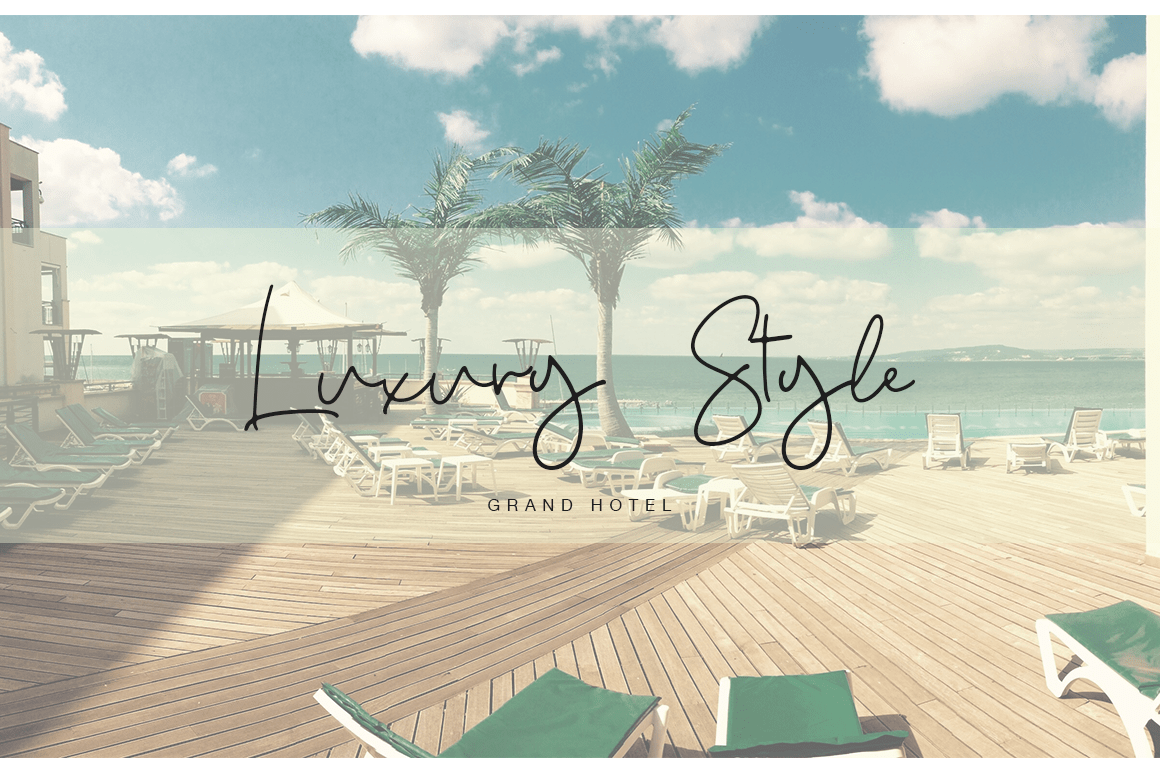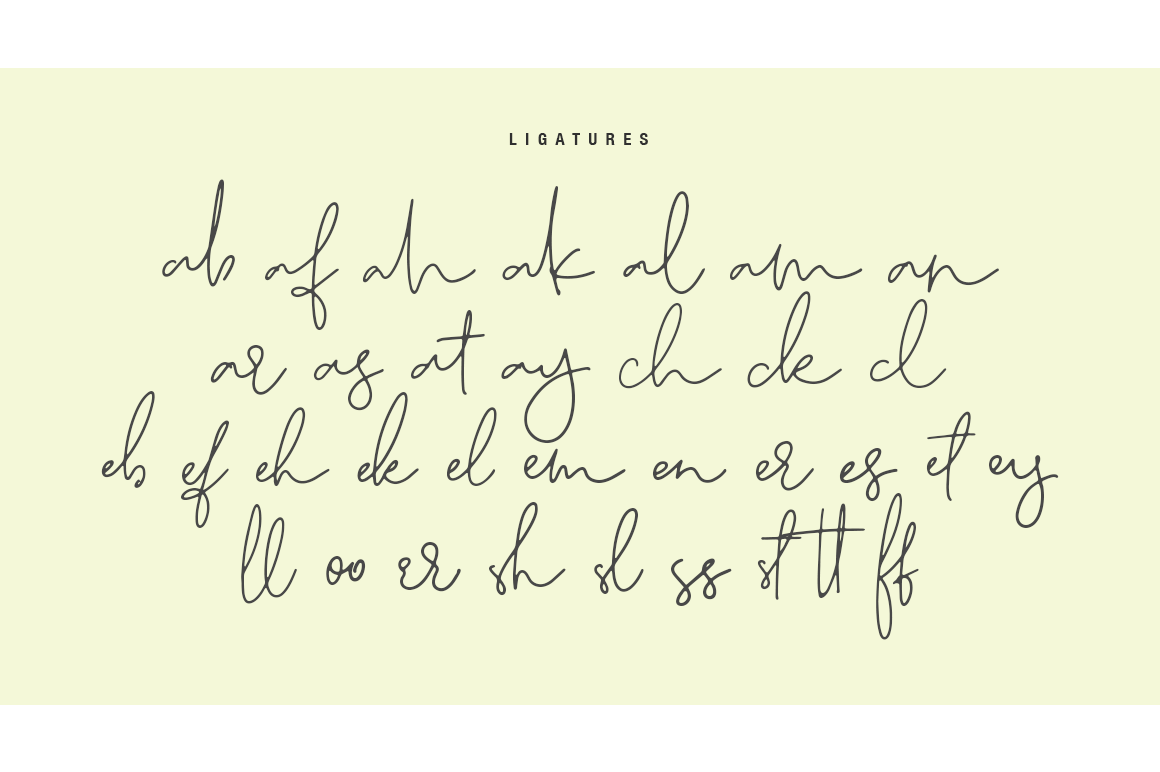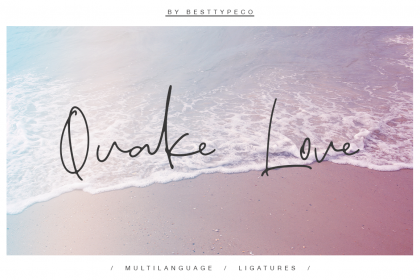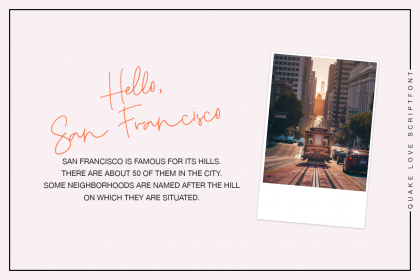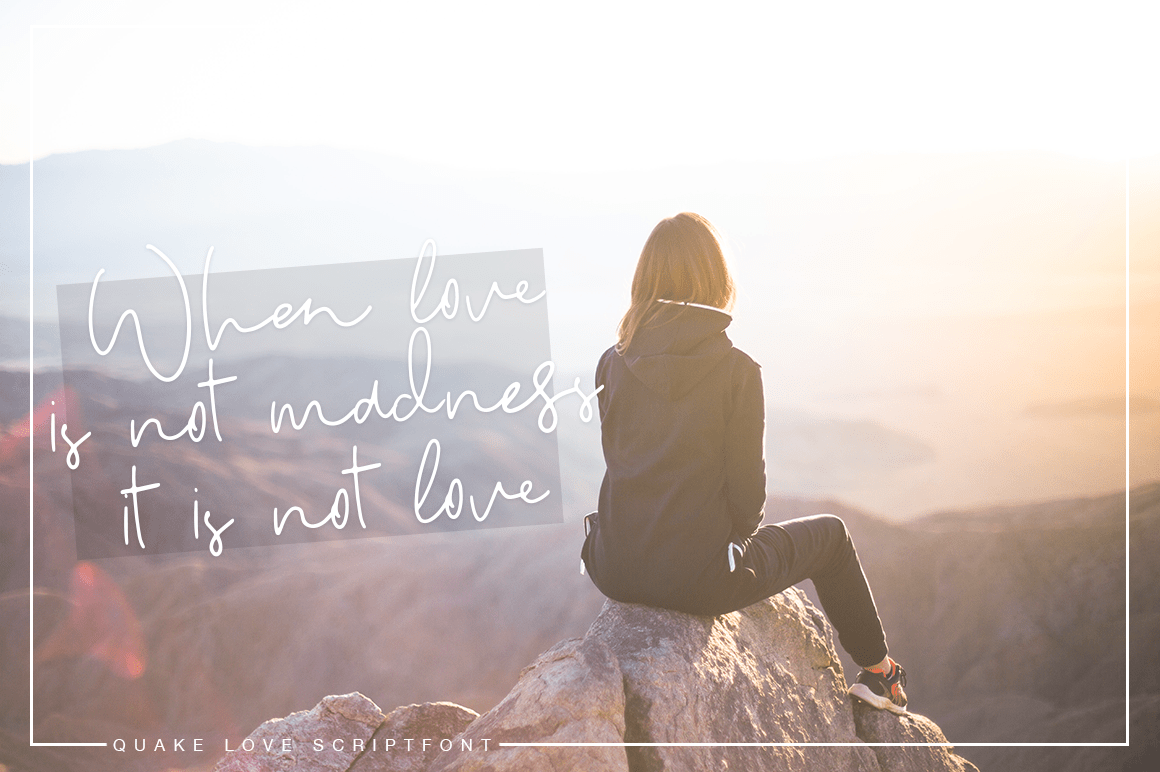
Quake Love Script Font – a new fresh handmade calligraphy font. Very suitable for greeting cards, branding materials, business cards, quotes, posters, and more!This font are perfect for wedding postcard. Or you can create perfect and unique design of your logo, blog, stationery, marketing, magazines and more ?
Features :
- UpperCase & Lowercase
- Numerals & Punctuations
- Ligatures
- Multilingualcharacters(AÀÁÂÃÄÅCÇDÐEÈÉÊËIÌÍÎÏNÑOØÒÓÔÕÖUÙÜÚÛWYÝŸŸ ÆŒßÞàáâãäåæçèéêëìíîïðñòóôõöøùúûüýÿ)